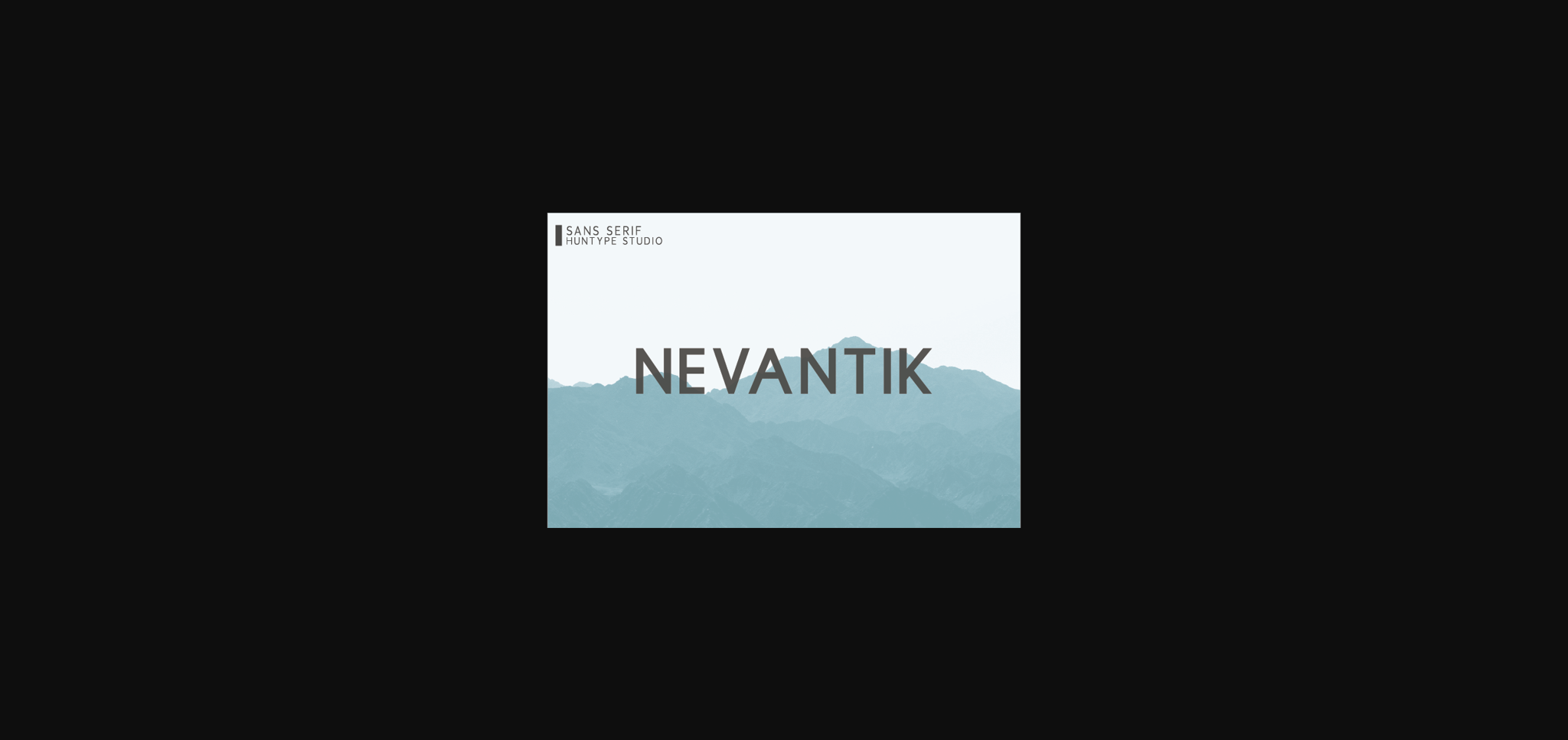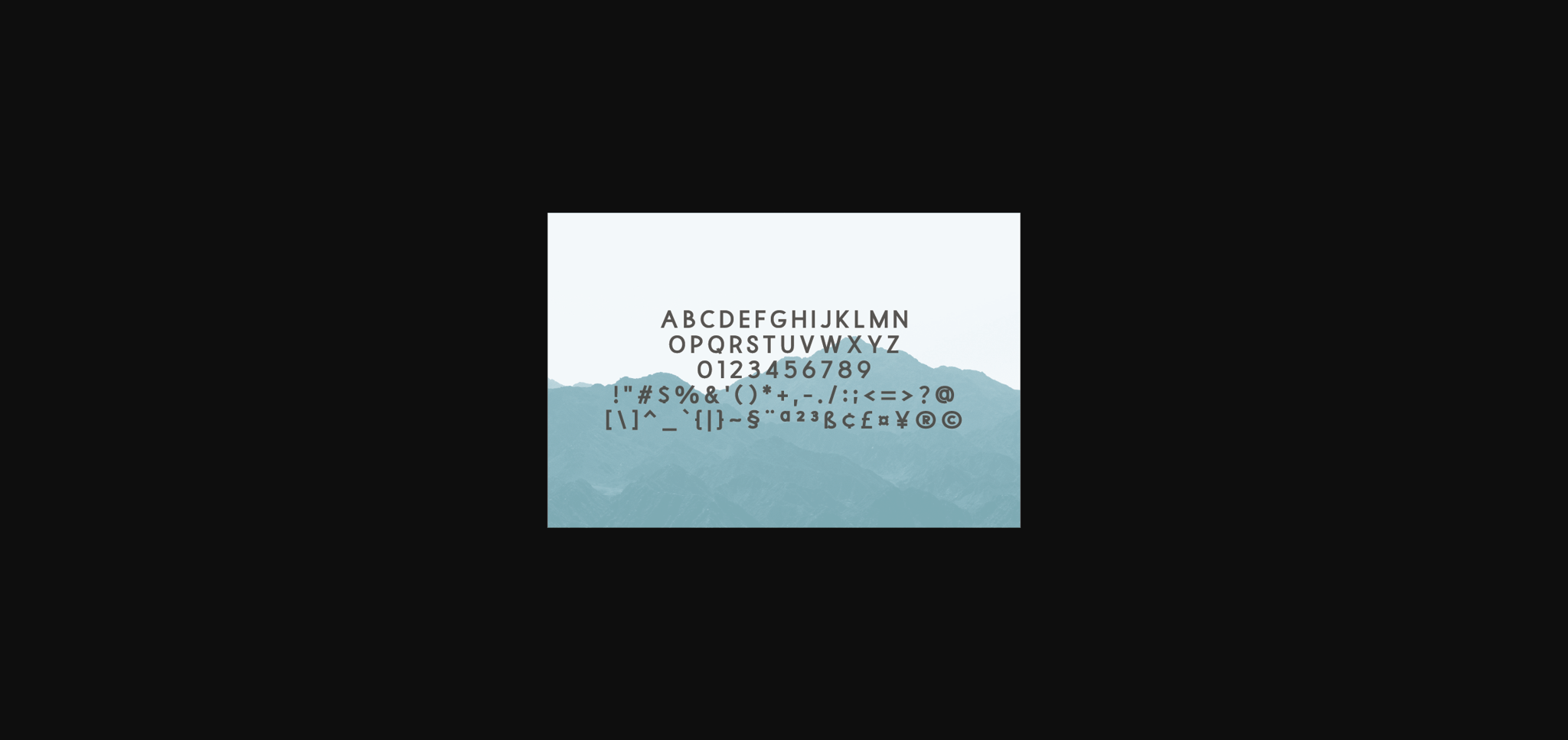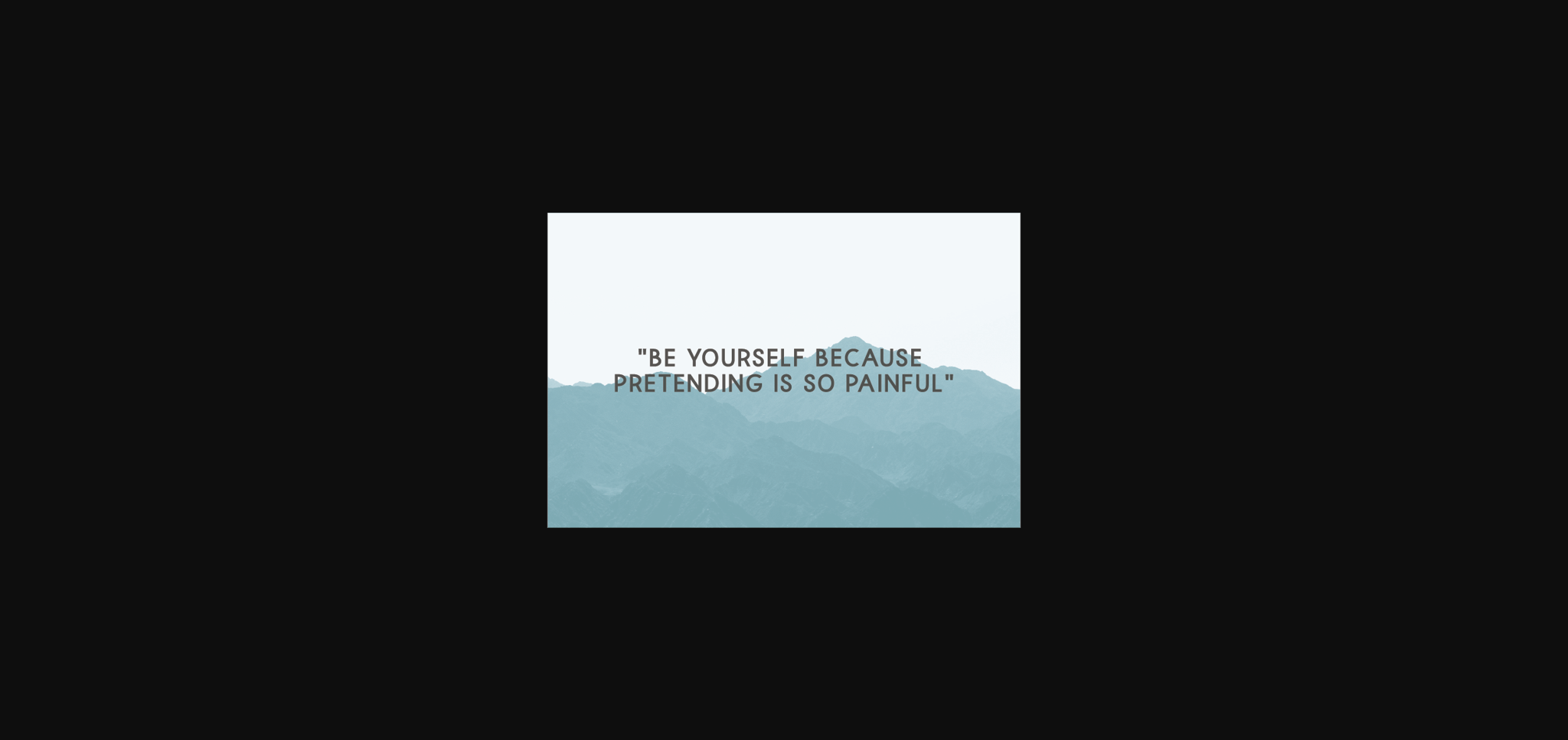
Nevantik Font
About Nevantik Font
Nevantik is a minimal and neat sans serif font. No matter the topic, this font will be an incredibly asset to your fonts’ library, as it has the potential to elevate any creation.